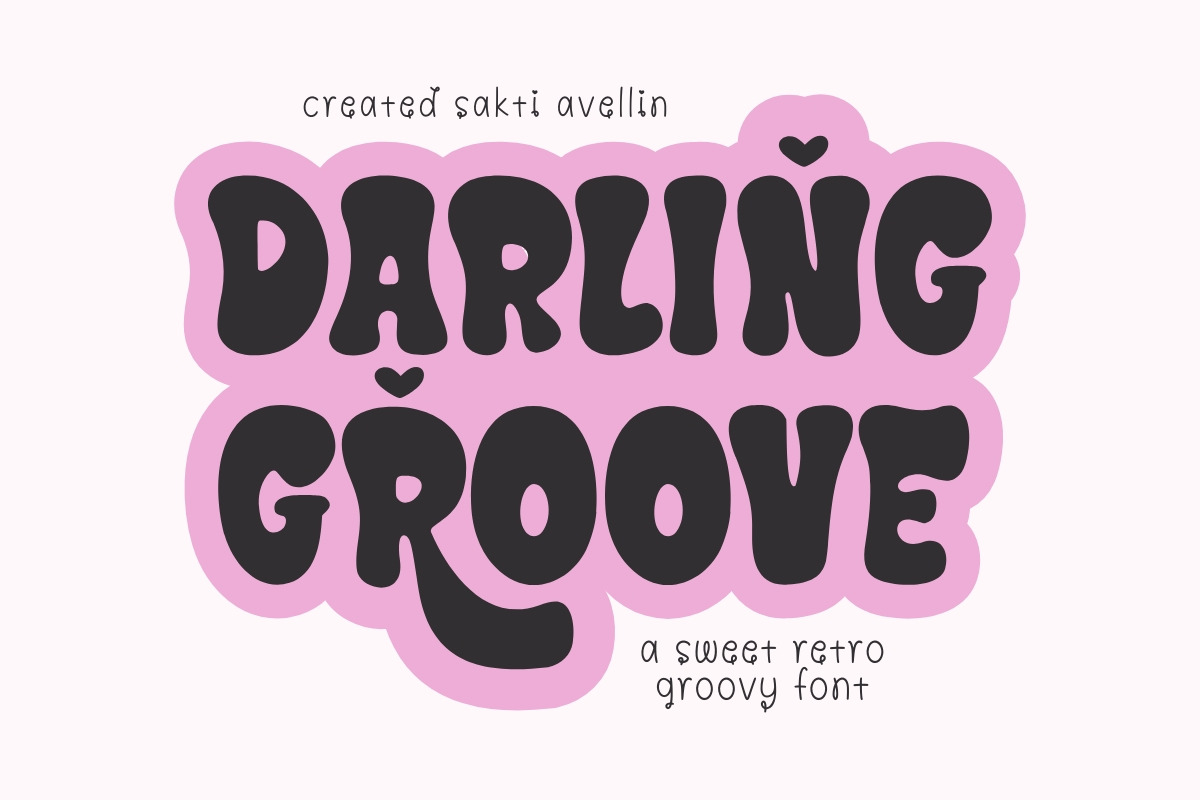
Darling Groove - Retro Groovy Font
Darling Groove is a super sweet and incredibly groovy retro font that transports your designs straight back to the fun, psychedelic aesthetic of the 1970s. This bold chunky display font features smooth, rounded letterforms and a playful bounce, making it ideal for vintage branding, cute feminine logos, retro posters, t-shirt designs, and vibrant social media graphics. Its distinctive, heavy style ensures it is a powerful display typeface for headlines and product packaging, appealing to a trendy audience with a love for nostalgia. Give your creative projects a darling dose of funk with this delightful sweet retro font!